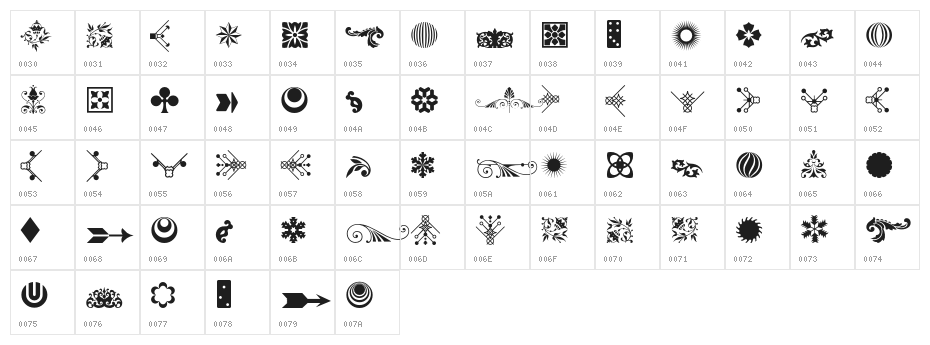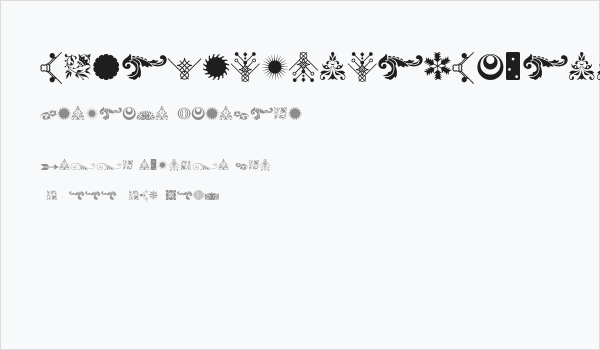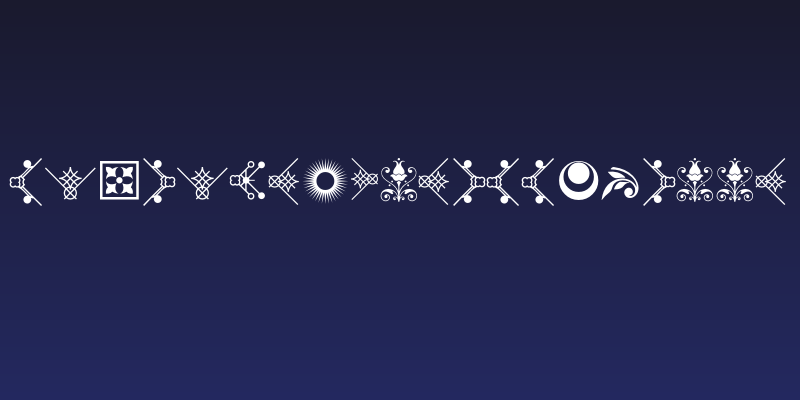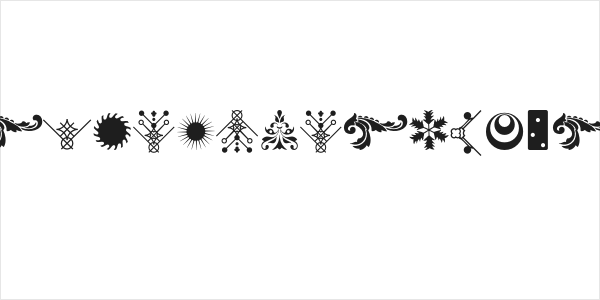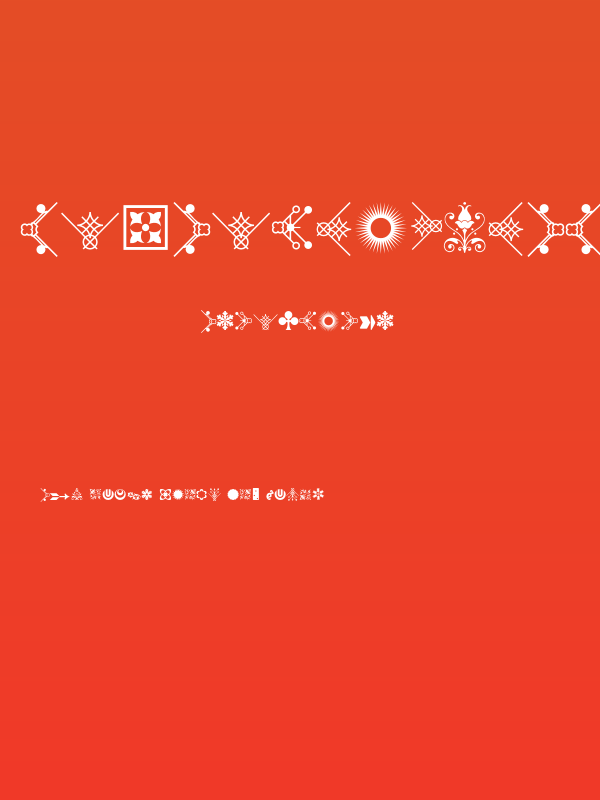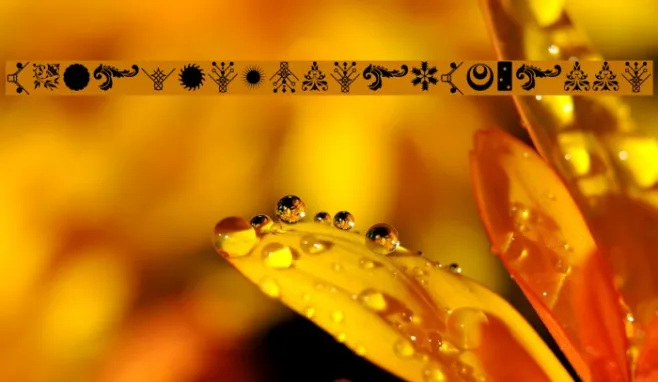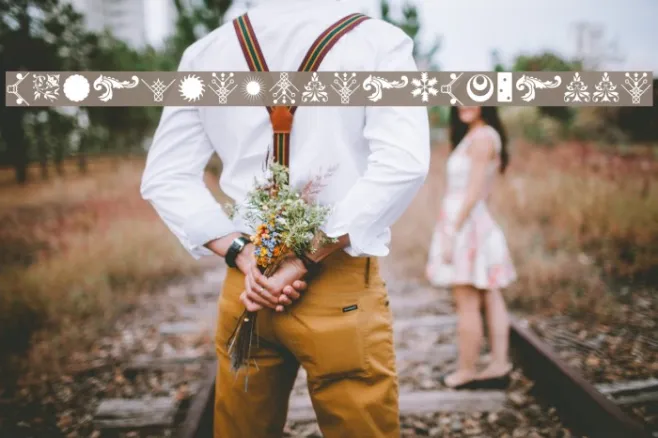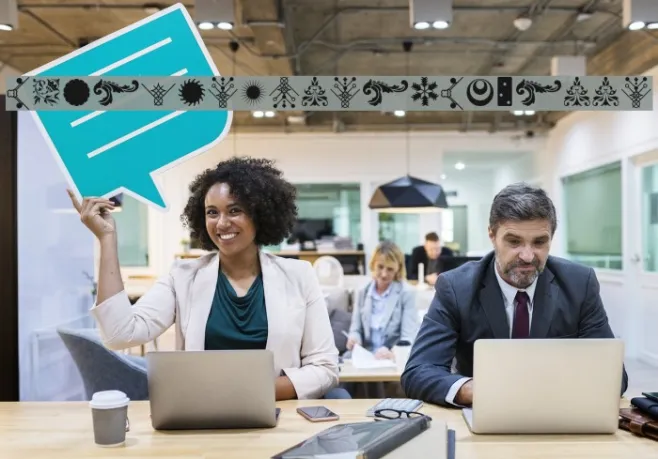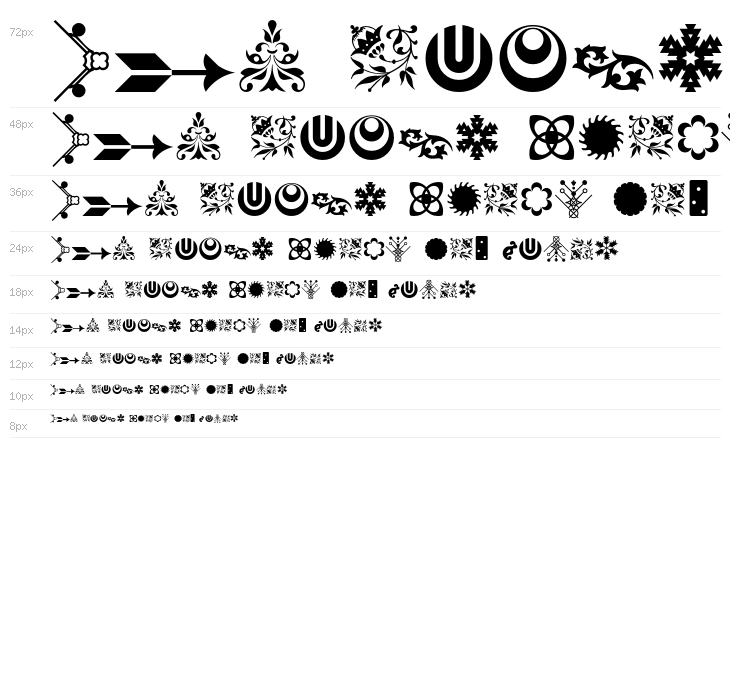
SoftOrnamentsSixteen Font
SoftOrnamentsSixteen Description
A decorative dingbat font featuring a variety of ornamental shapes, flourishes, floral motifs, geometric patterns, and abstract symbols, all rendered in solid black with intricate detailing.
| Overall Style | Decorative, Vintage |
| Use Case | Borders, embellishments, invitations, decorative elements. |
| Proposed Projects | Invitations, certificates, borders, dividers, scrapbooking, vintage-themed designs, decorative accents. |